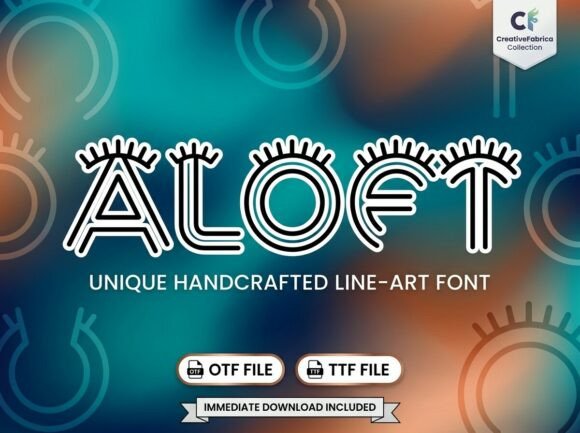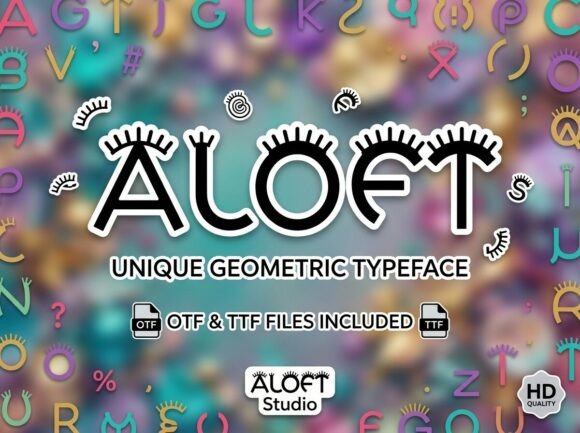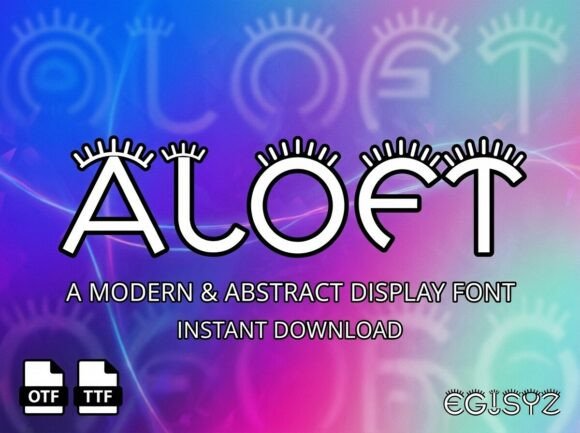
Aloft Above the Rest: Elevate Your Brand with the Celestial Aloft Font
Have you ever found yourself staring up at the night sky, lost in the infinite possibilities that lie beyond our small world? That’s exactly where the creative process begins for many designers – in the realm of the unknown, where ideas are born and the imagination knows no bounds. It’s in this very space that the Aloft Font emerges, a celestial display typeface that embodies the essence of visionary and vibrant creativity.
With its unique blend of clean, geometric letterforms and rhythmic, hand-drawn accents, the Aloft Font is a game-changer for designers looking to elevate their brand’s visual identity. Its sophisticated double-line structure and light structural weight make it the perfect choice for independent luxury skincare identities, boutique yoga studios, and astrological editorial designs.
Aloft Font Key Features
- Font Family: Aloft Font is a sans-serif font family designed for digital use. It is available in 7 weights, ranging from Light to Black.
- Character Set: The font includes a wide range of characters, including Latin, Greek, Cyrillic, and punctuation marks.
- Unique Characteristics: Aloft Font features a clean, modern design with a subtle rounded edge, making it ideal for use in digital interfaces, signage, and branding materials.
Aloft Font Review
When I first laid eyes on Aloft Font, I was struck by its unique blend of modern and minimalist qualities. ✨ The font’s clean lines and simple shapes give it a fresh, open feel that’s perfect for a wide range of design projects.
- Highly legible: Aloft Font is designed to be easy on the eyes, making it perfect for body text or headings where clarity is key.
- Versatile: With a wide range of weights and styles, Aloft Font can adapt to any design project, from sleek tech interfaces to elegant branding materials.
- Strong horizontal axis: This feature helps the font to be suitable for titles and headings.
However, I did encounter a few limitations that might give designers pause. ⚠️ For instance, Aloft Font can sometimes come across as a bit too generic, lacking the distinctiveness that sets some other fonts apart.
Overall, I’d say Aloft Font is a solid choice for designers looking for a clean, modern sans-serif font that’s easy to work with. While it may not be the most exciting or innovative option out there, it’s a reliable and versatile choice that’s sure to deliver professional results.
For best results, use Aloft Font for headings and titles to add a touch of sophistication to your design.
- Use the font for headings and titles to add a touch of elegance to your design.
For best results, use Aloft Font in conjunction with other modern fonts to create a cohesive look.
For best results, use Aloft Font for headings and titles to add a touch of professionalism to your presentation or document.
Aloft Font is ideal for:
- Business presentations and reports
- Website headers and titles
- Editorial content and articles
Alternatives to Aloft Font
Lato is a modern sans-serif font that is highly legible and suitable for body text. It is a great alternative to Aloft Font when you need a clean and minimalist look. Lato is more condensed than Aloft, making it ideal for smaller screen sizes and digital interfaces.
Comparison: Lato has a more neutral tone and is less decorative than Aloft. It is a great choice when you need a simple and readable font without the flair of Aloft.
Montserrat is a geometric sans-serif font that is highly versatile and suitable for a wide range of applications. It is a great alternative to Aloft Font when you need a font that is both modern and timeless. Montserrat has a more angular feel than Aloft, making it ideal for bold and attention-grabbing designs.
Comparison: Montserrat has a more dramatic feel than Aloft and is less suitable for body text. It is a great choice when you need a font that makes a statement and adds visual interest to your design.
What is the recommended font size for optimal readability with Aloft Font?
The recommended font size for optimal readability with Aloft Font is between 10pt and 14pt. However, this may vary depending on the specific design requirements and the intended audience. It’s always a good idea to test different font sizes to ensure the best readability and legibility.